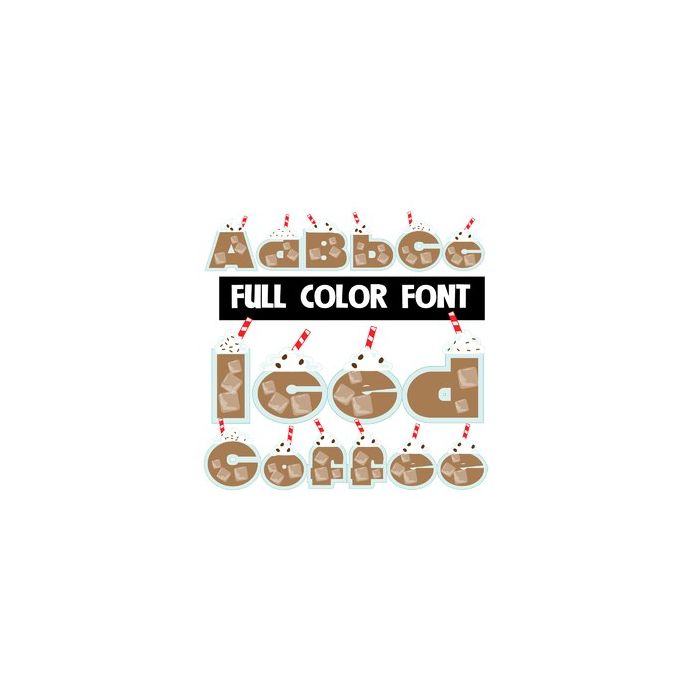
This full-color font features iced coffee and red and white straws. This font works best for titles, displays, posters and more. Please note color fonts will show as black in non compatible programs. This font type is compatible with Silhouette Studio.